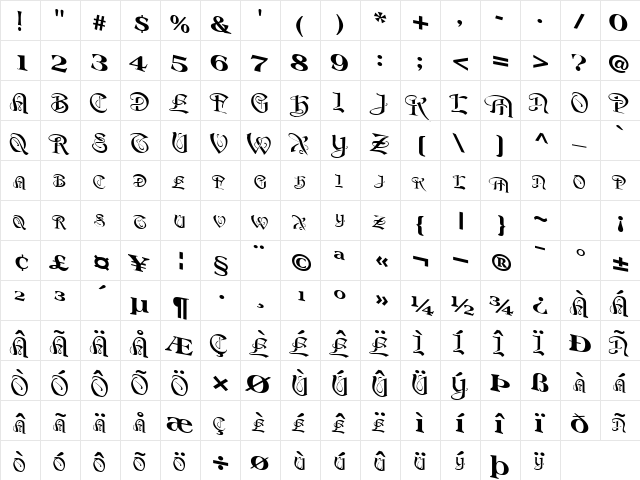
Beaverton Regular Font Preview
Beaverton Regular
Beaverton Regular Font Details
Design Context for Beaverton Typeface
Beaverton is a composed and adaptable typeface that performs quietly and consistently across a wide range of design contexts.